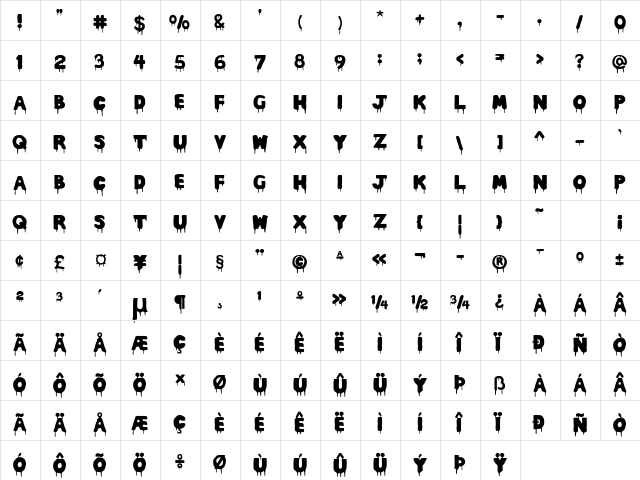
Rocky Horror Picture Show Regular
Design Context for Rocky Horror Picture Show Typeface
Rocky Horror Picture Show carries an unsettling edge — its distorted letterforms are built to unsettle, perfectly suited to horror, Halloween, and dark creative work.
Ideal for Halloween projects, horror film titles, haunted house signage, and dark editorial design.
Font Pairing: Pair with a clean neutral sans-serif for body copy to let Rocky Horror Picture Show's character lead without overwhelming the composition.
Pro Tip: Rocky Horror Picture Show works best as a headline or focal element. Pair it against plain, neutral body text to amplify the contrast.